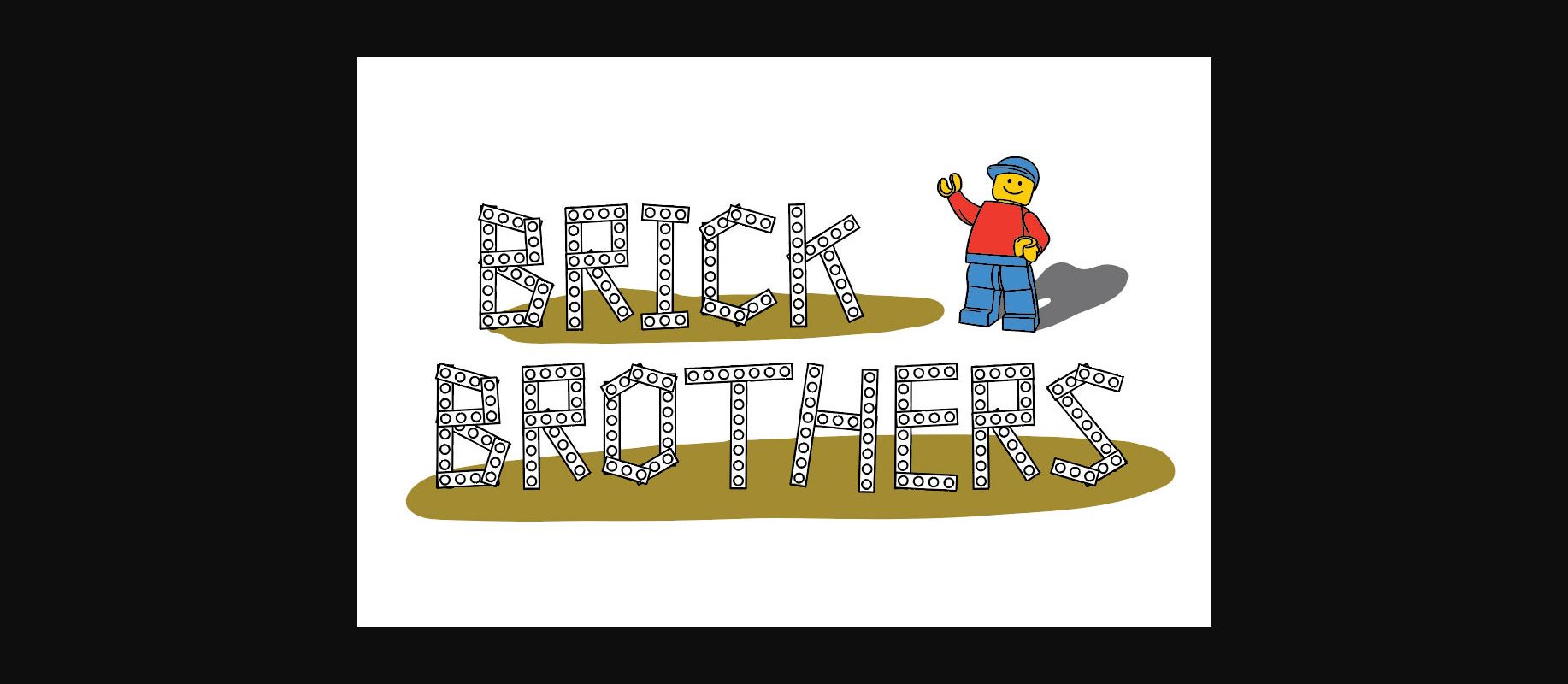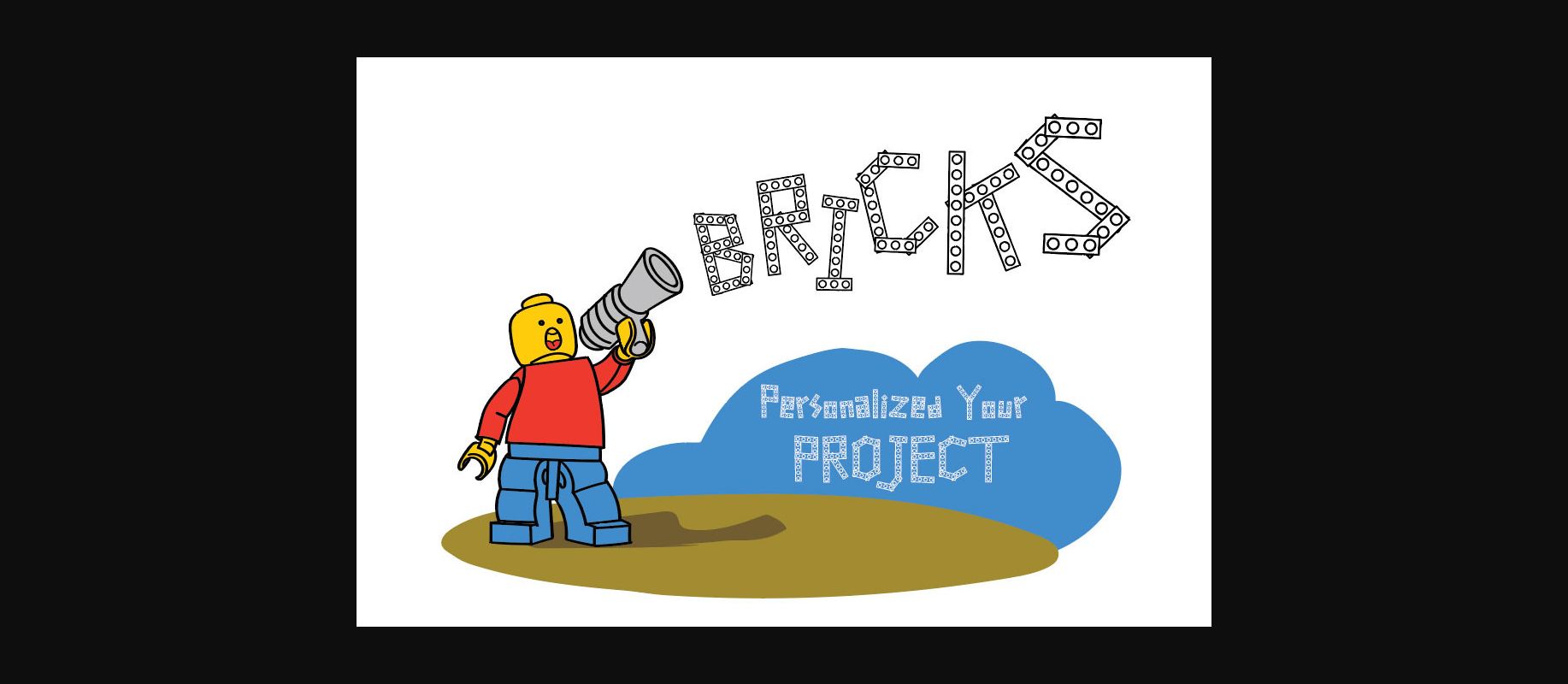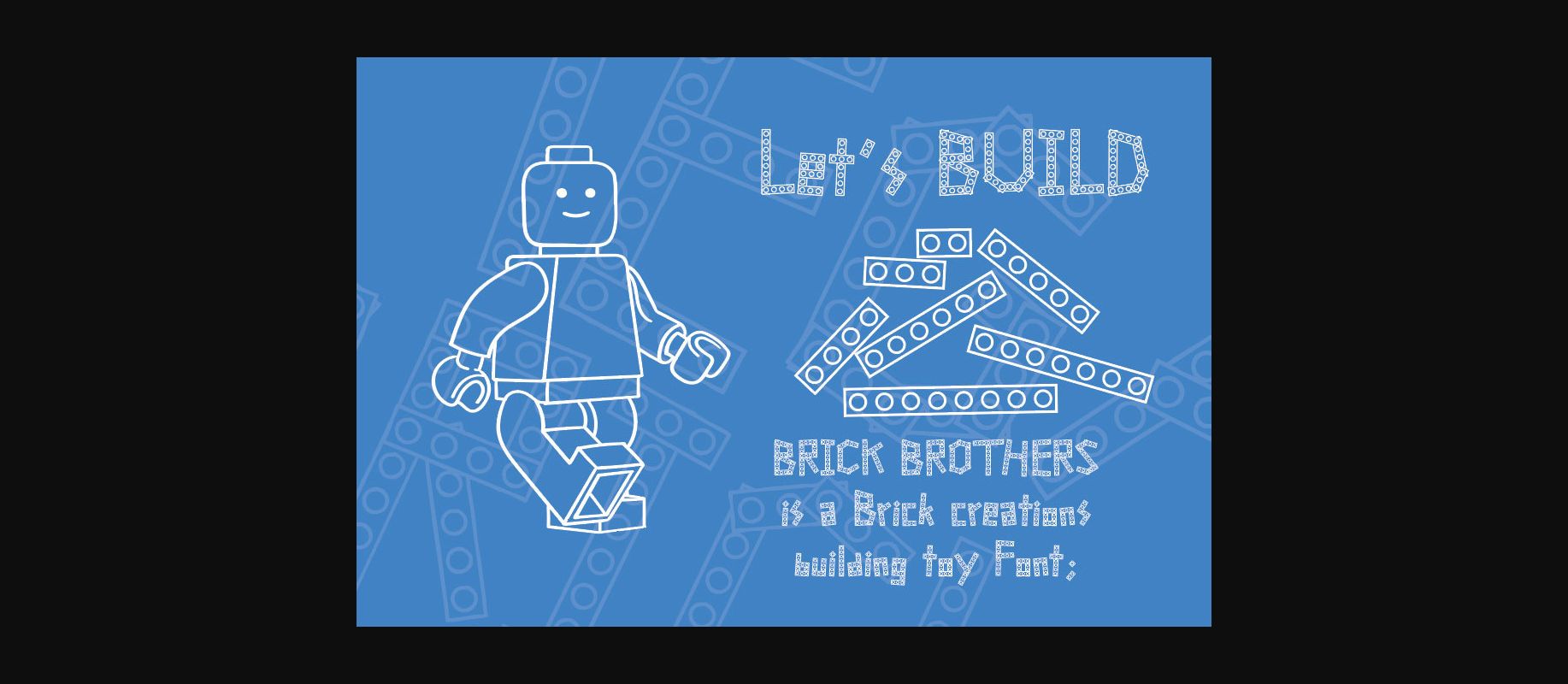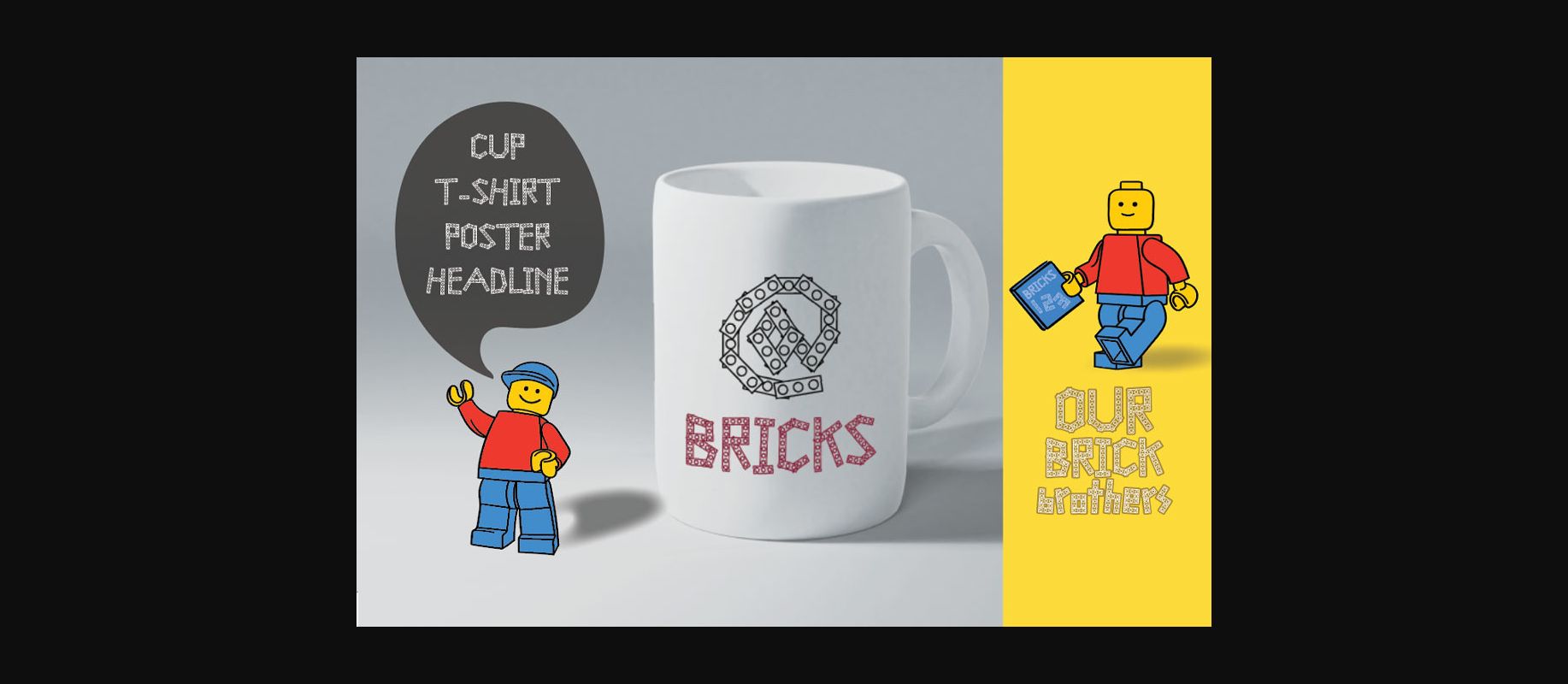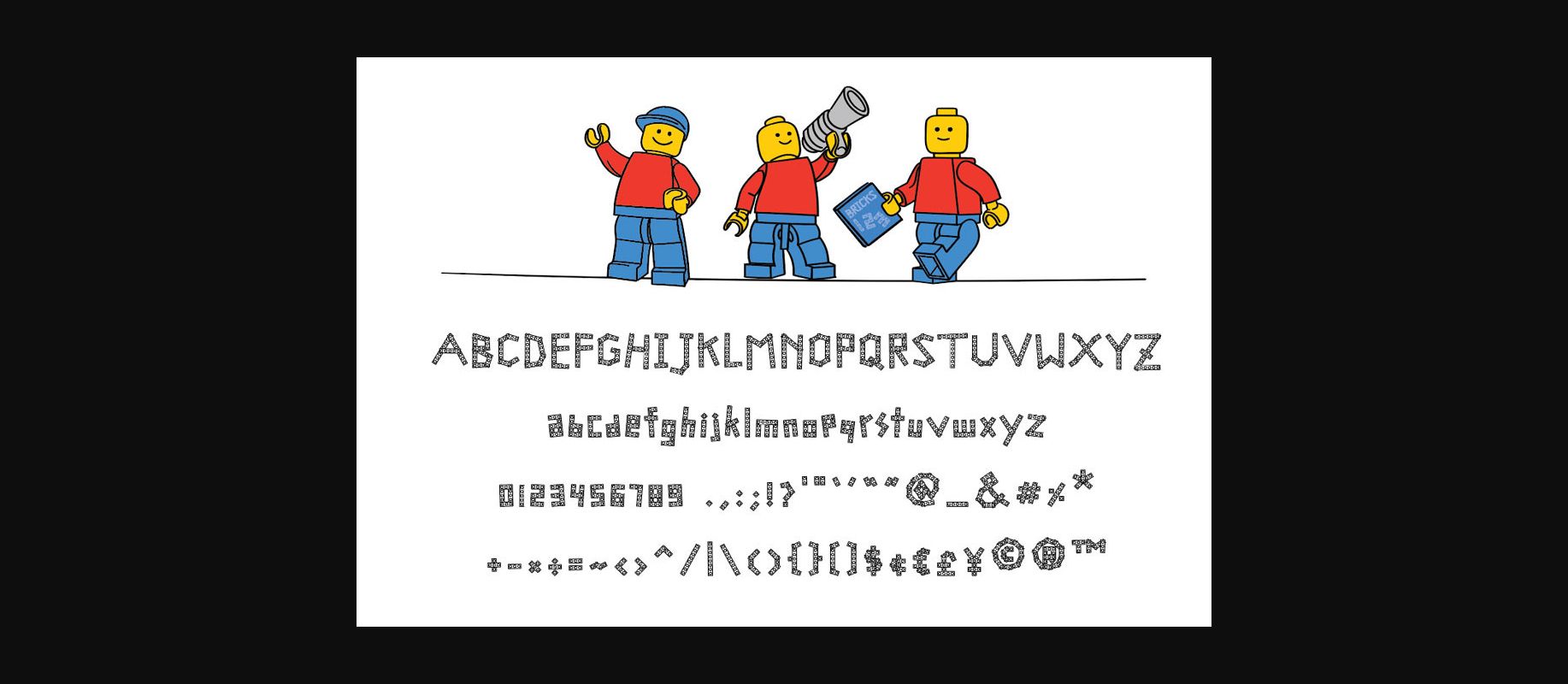
Brick Brothers Font
Brick Brothers is a fun, unique and originally designed decorative font. It embodies playfulness and authenticity and is the perfect choice for any children activity or school project.